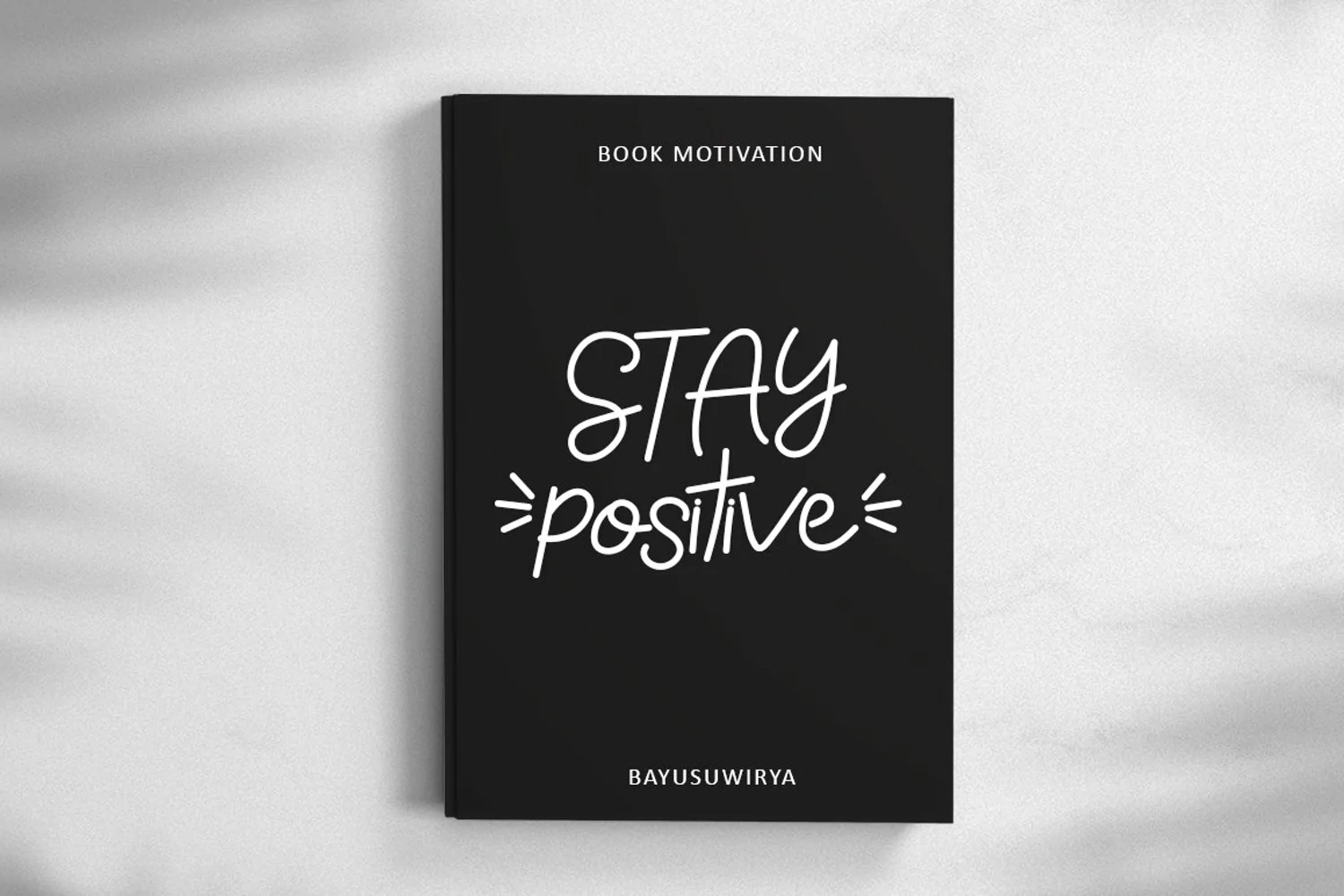
Fully Moon - A Monoline Font
Happy to share our new font "Fully Moon" is a beautiful monoline font with movement and grace.
Although simple, Fully Moon is stunning as a display, and can give your headlines a clean and modern look and feel.
It's have a special ligature and character on this font. Will be perfect fit for all of your logos, branding, social media, and crafty DIY projects.
- Uppercase and lowercase
- Numbers
- Symbols
- Multilingual Accent
- Ligature
- Special Character